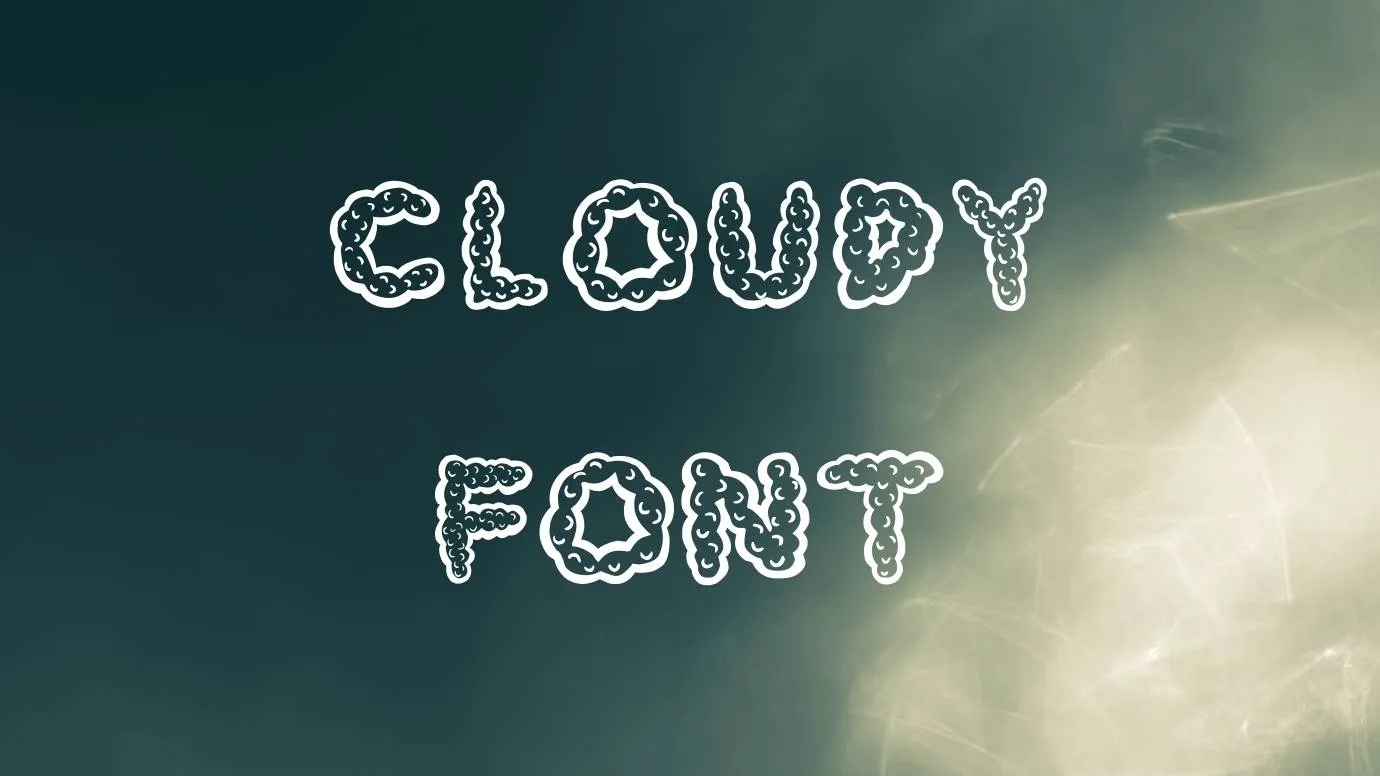
Cloudy Font Family is comic fancy style font that has unique shape letters. This font family has a bold outline and bubble shape letters. The characters of this font show an animated look that’s why most people use it for animated logos, cards, and many 0ther related purposes.
Its attractive look is so coherent for designers and users of this font. If you want to make it pair with a similar font then I recommended you that use the bubblegum font.
Cloudy Font